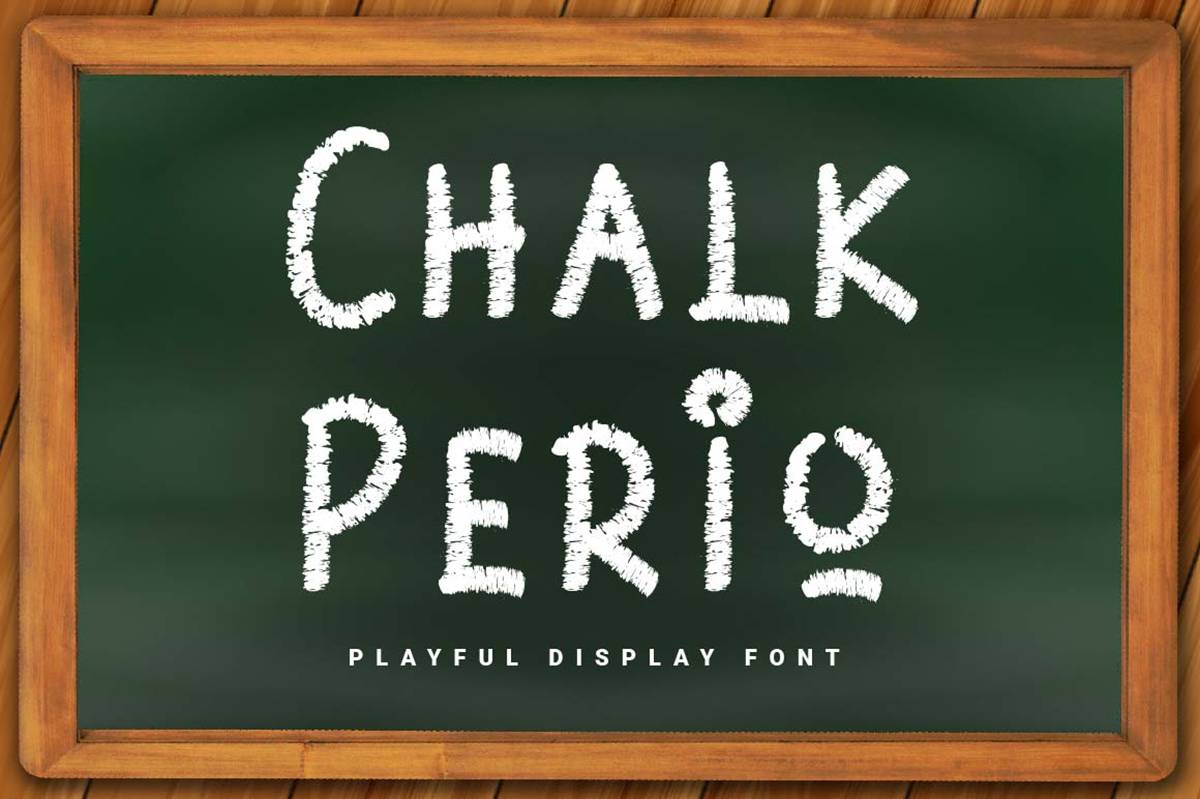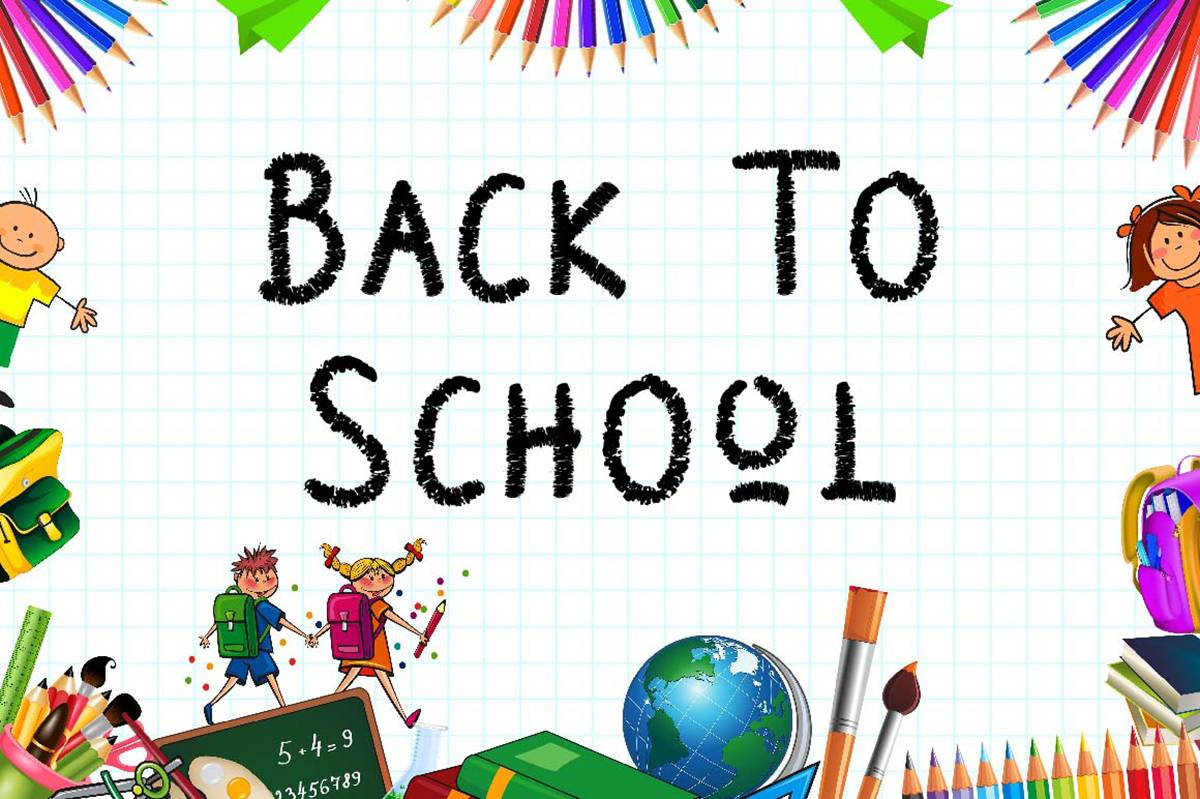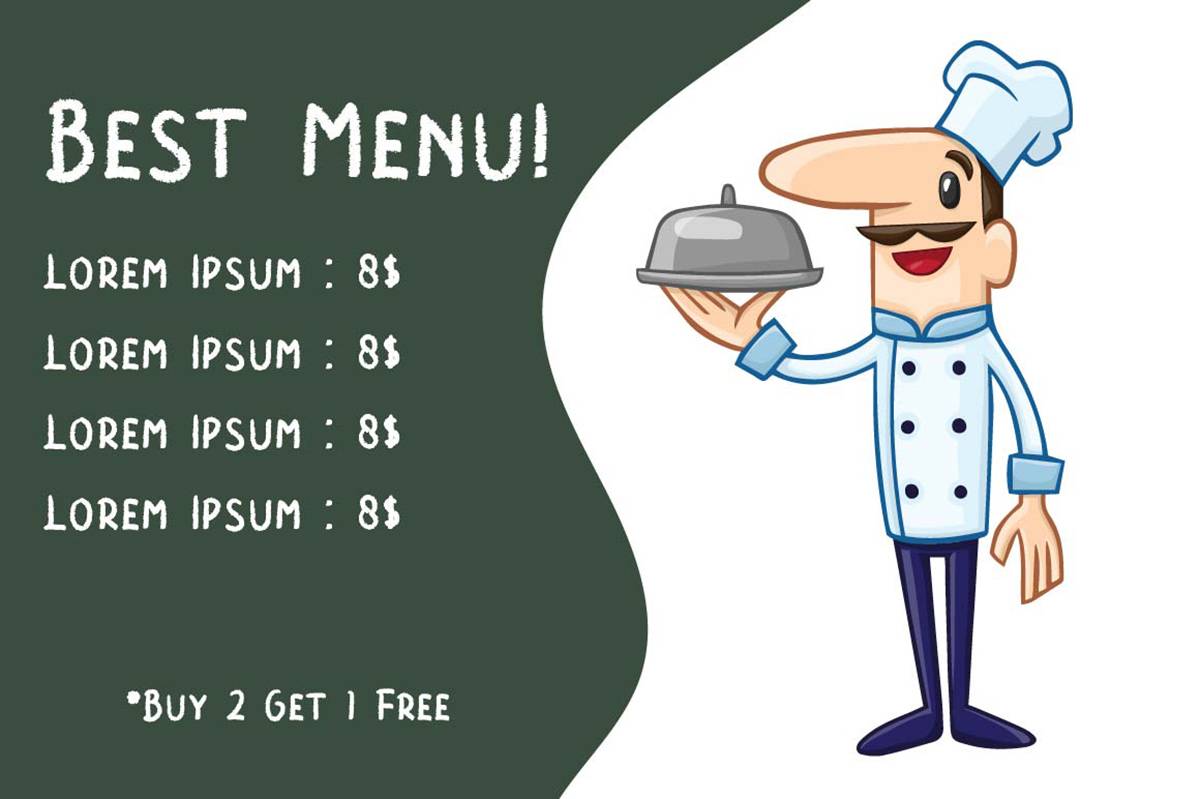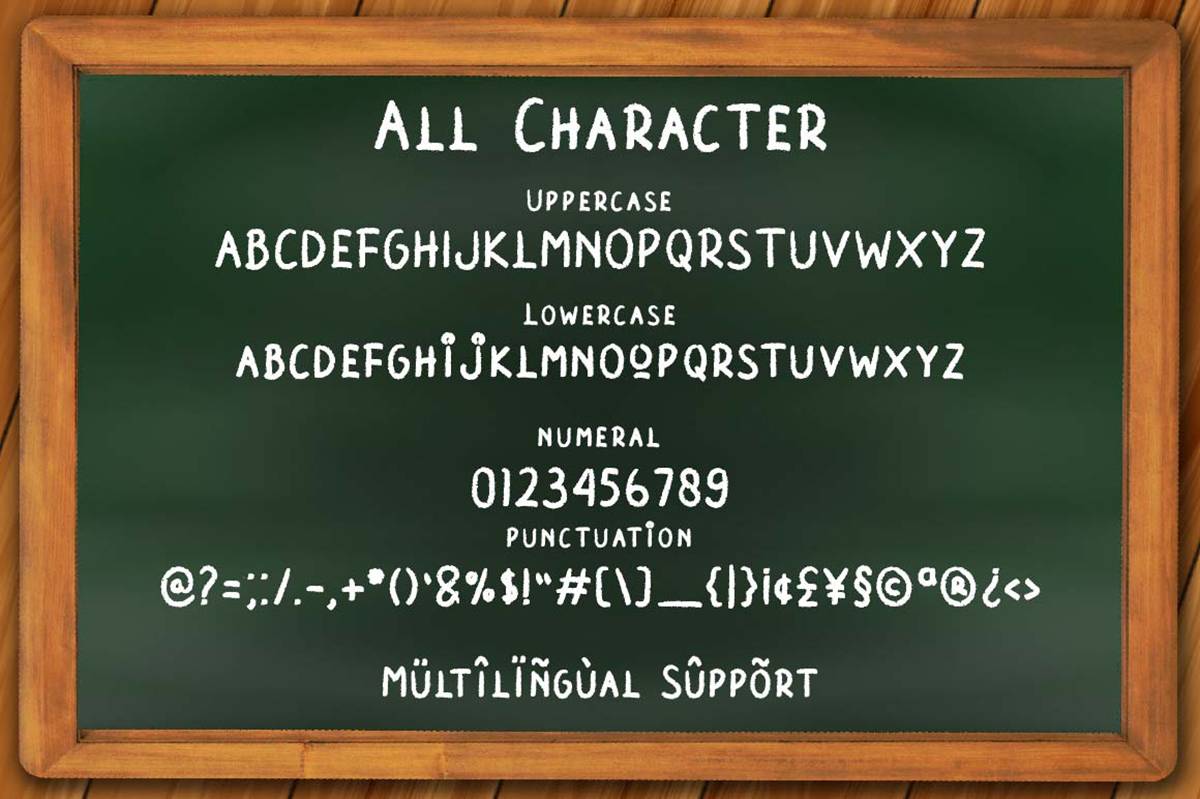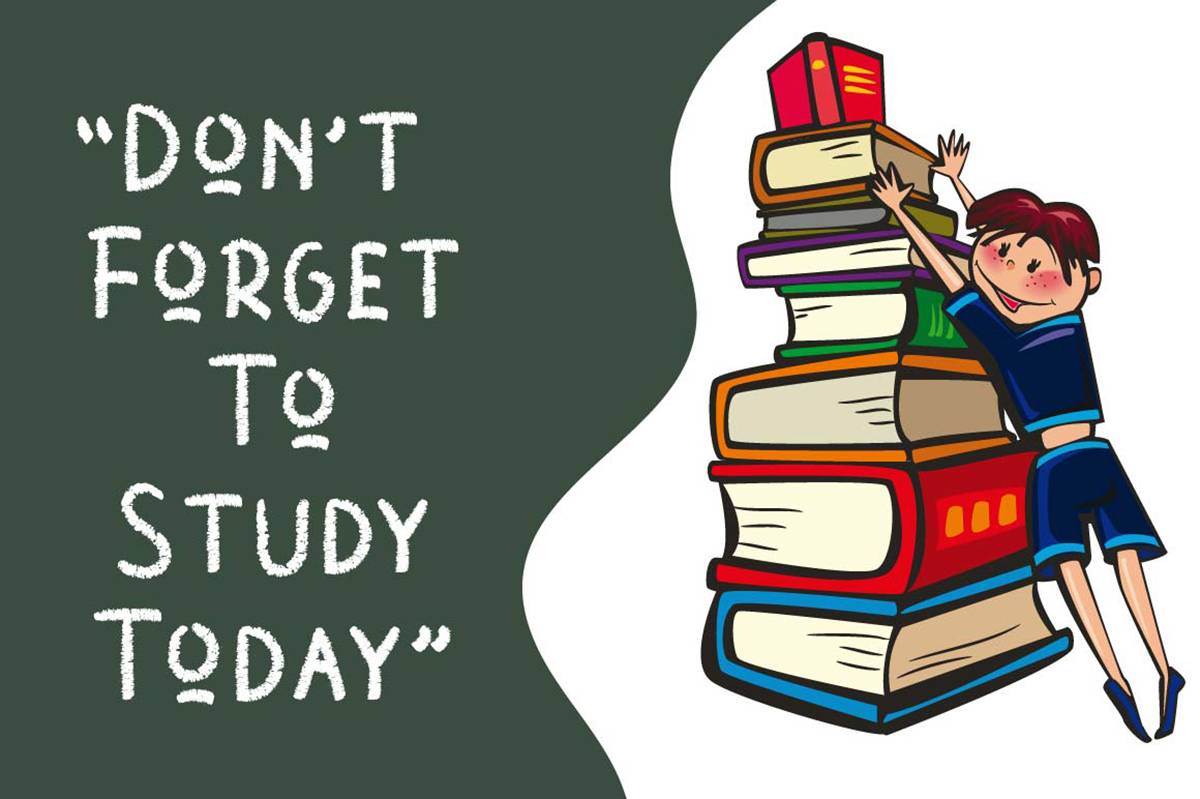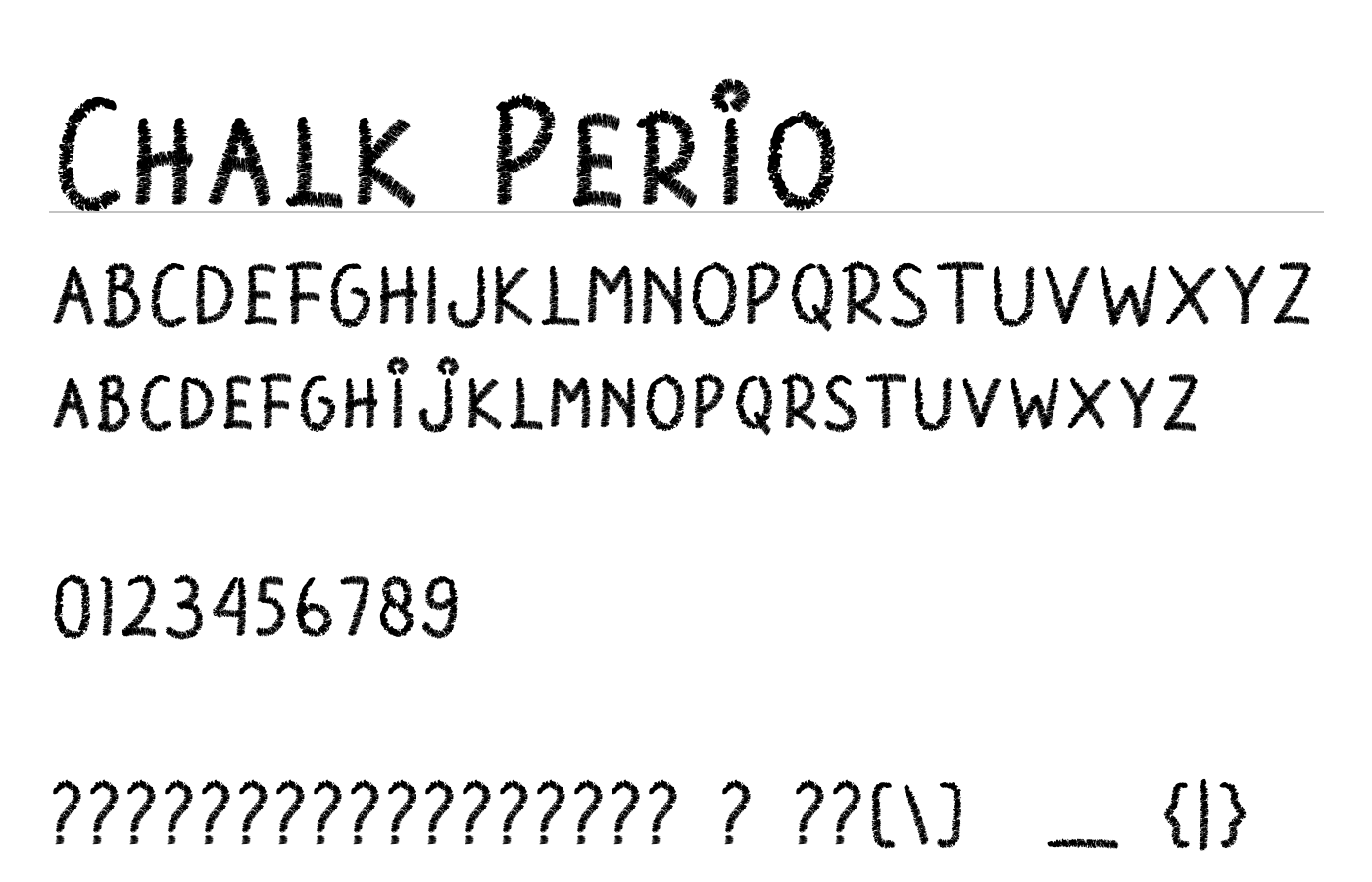
Chalk Perio is a playful sans serif font that mimics the textured, rough look of chalk writing, giving it a casual and handmade feel. With its uneven strokes and slightly irregular letterforms, it exudes a friendly and approachable personality, making it ideal for creative projects, educational materials, and informal branding. This font works especially well for headlines, posters, or designs where a fun, relaxed vibe is desired.
Chalk Perio Font
About Chalk Perio Font
| Font family | Chalk Perio Font |
| Designer | Prio Nurokhim Aji |